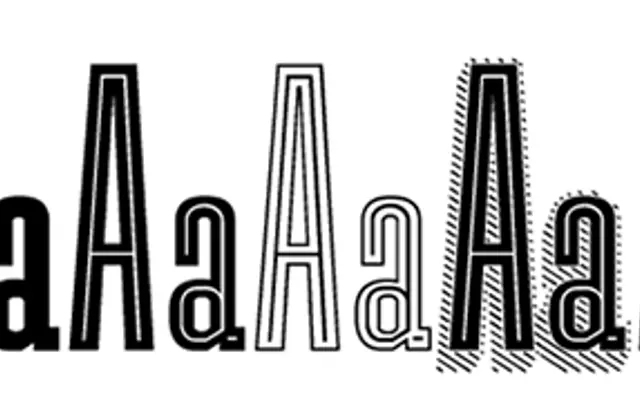
Lichtspiele
Typocalypse · Stefan Hübsch · 2014
A five-subfamily display family by Stefan Hübsch evoking early 20th-century German cinema facades, with neon, outline, extruded and screen-credits variants.
Designed between 2012 and 2014, Lichtspiele takes its name from the German word for cinemas of the early 20th century and builds out eleven fonts across five distinct styles. Display covers a base upright with two italics offering opposing perspectives, Neon riffs on old cinema signage lettering, Neon Outline and Neon 3D add layering and extrusion, and Screen Credits draws from movie poster liner notes. The dual italic perspectives across three of the styles give the family an unusual spatial quality suited to layered poster and signage work.
Explicitly conceived as a display family evoking early 20th-century German cinema facades, with neon, marquee and dimensional variants that place it firmly in decorative/display territory.